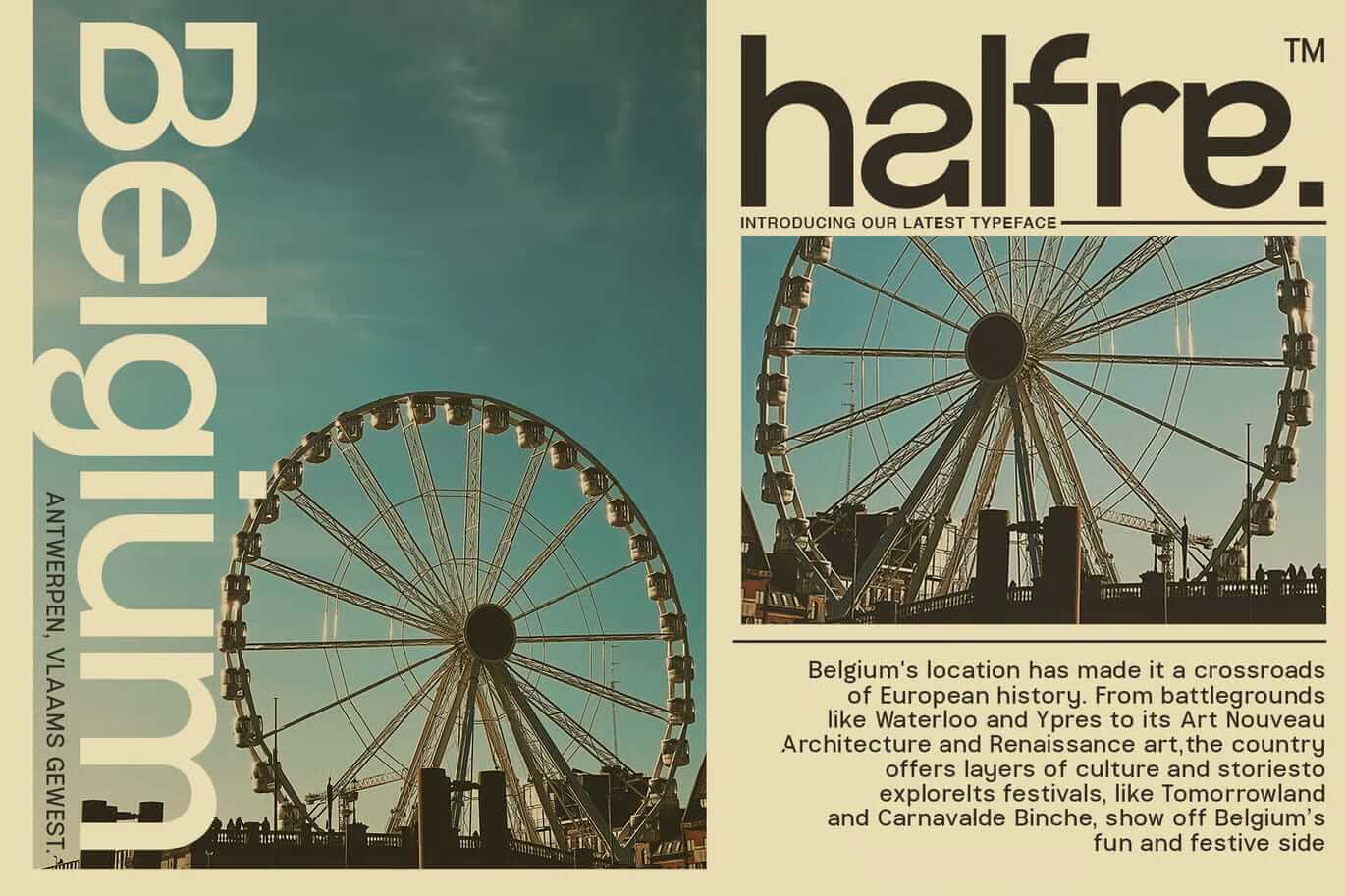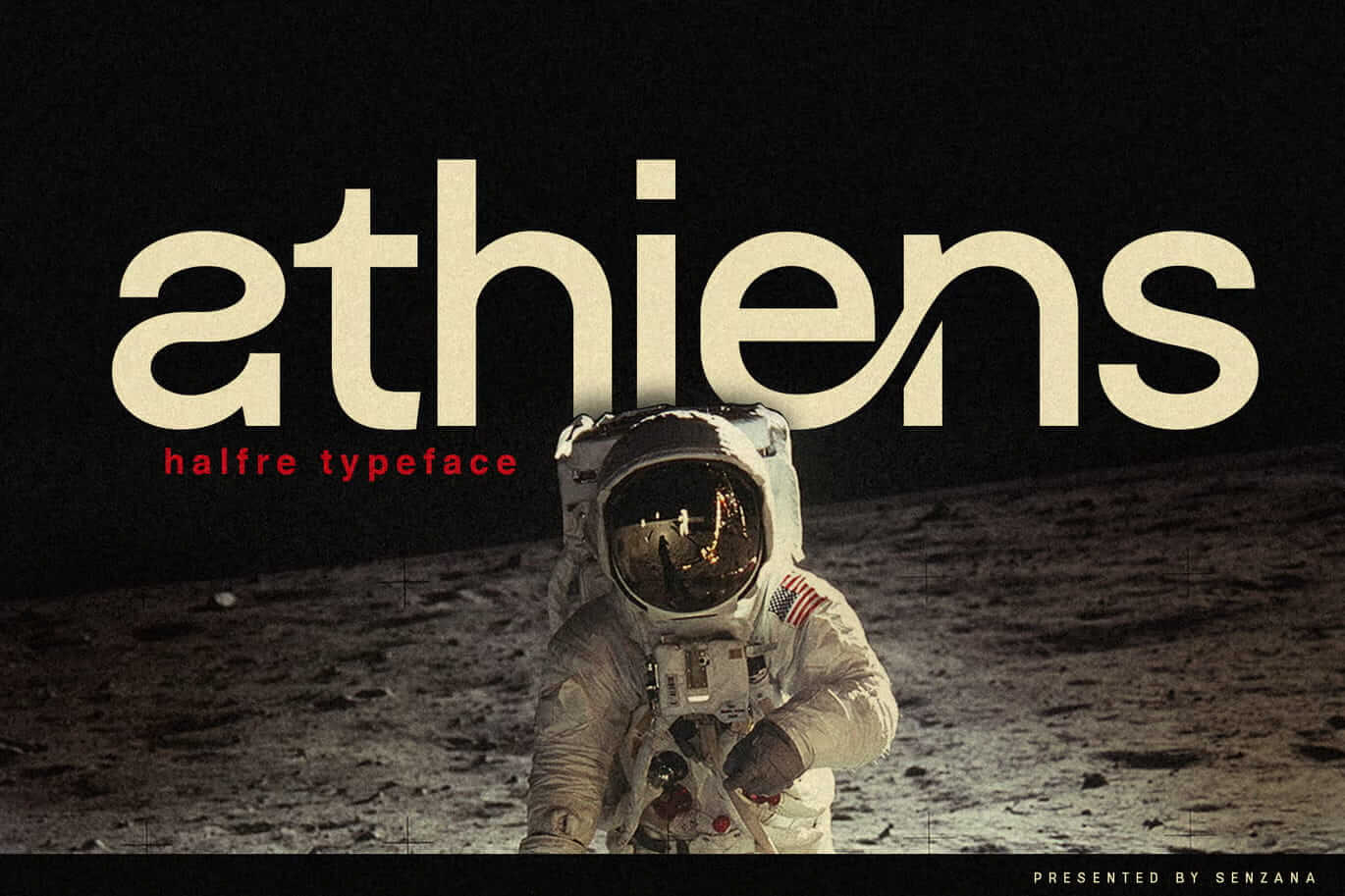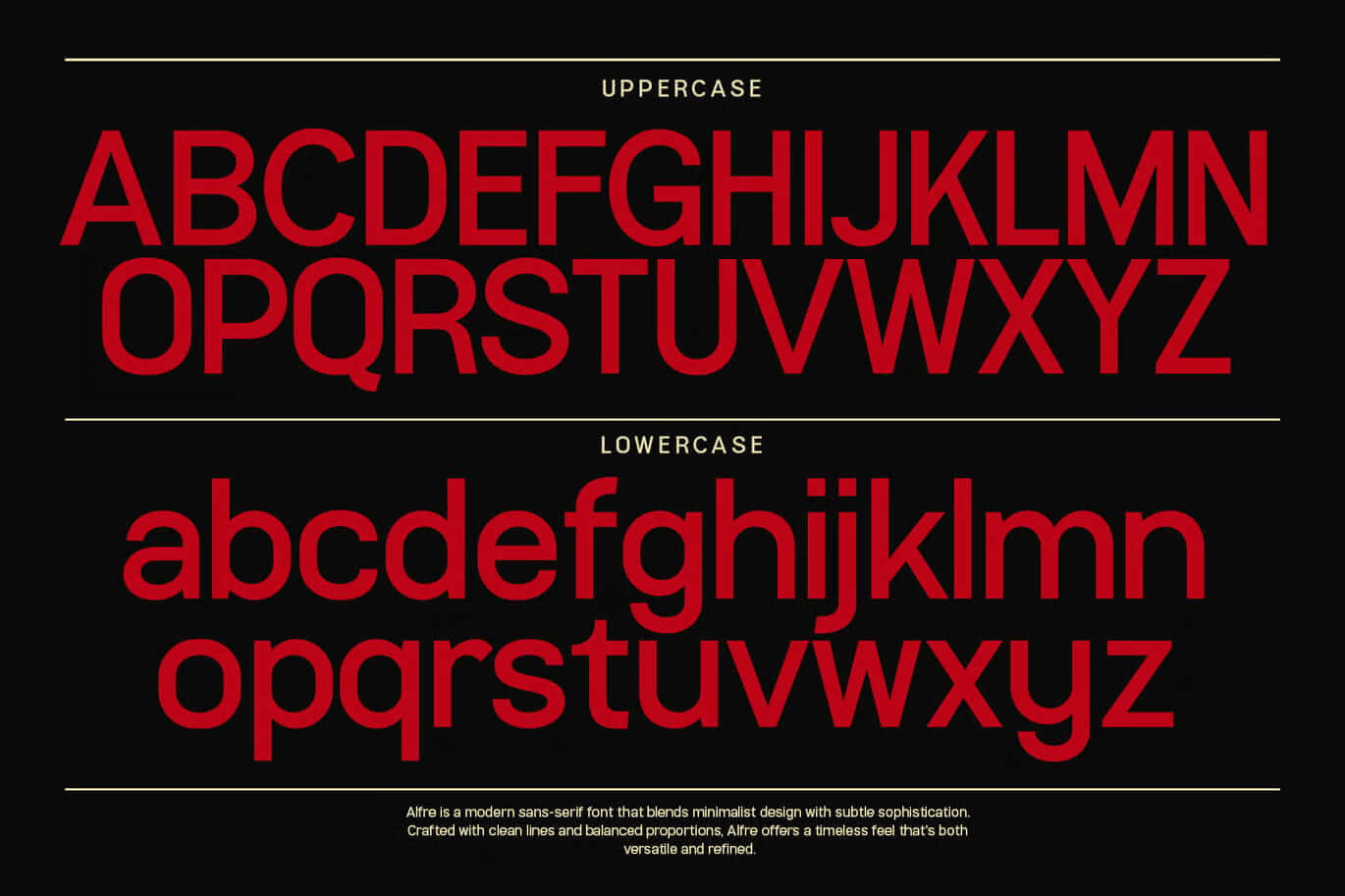
Halfre is a modern sans-serif typeface with a clean and balanced design. Its sharp lines and smooth curves give it a simple and confident look, making it suitable for branding, editorial layouts, UI design, and minimalist packaging.
It focuses on readability while keeping a modern and simple style. The overall look feels fresh and works well across different types of projects.
Each character is clear and easy to read, helping your designs stay clean and consistent in both digital and print use.
- Uppercase
- Lowercase
- Numerals
- Functional design
- Multilingual support
- Alternate glyphs